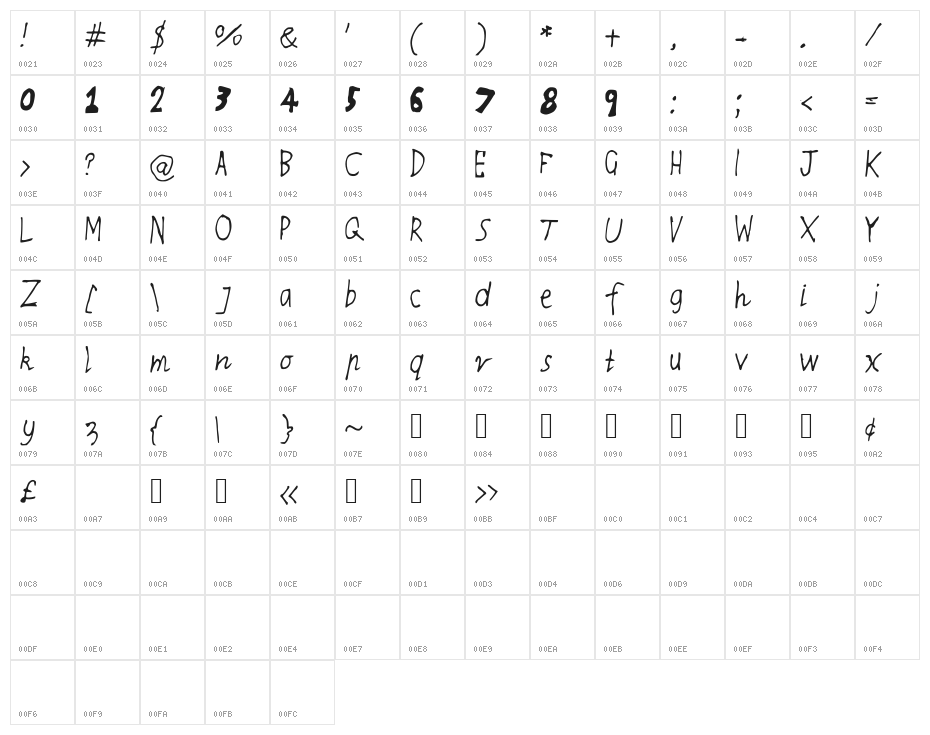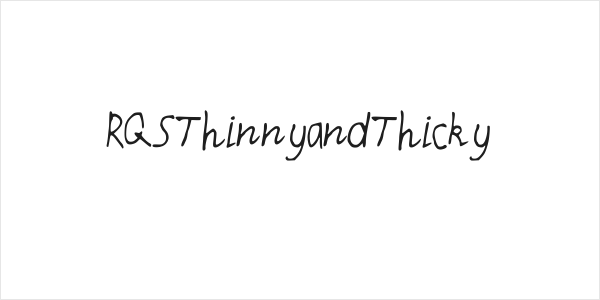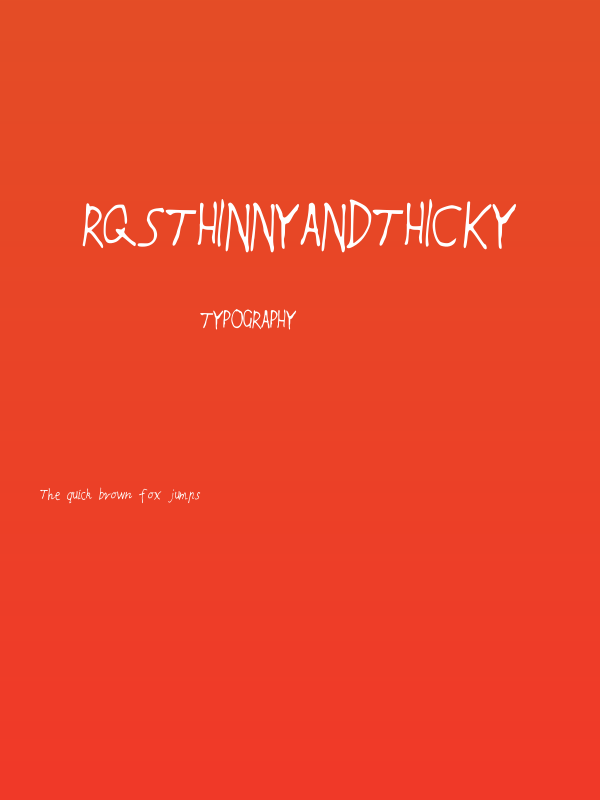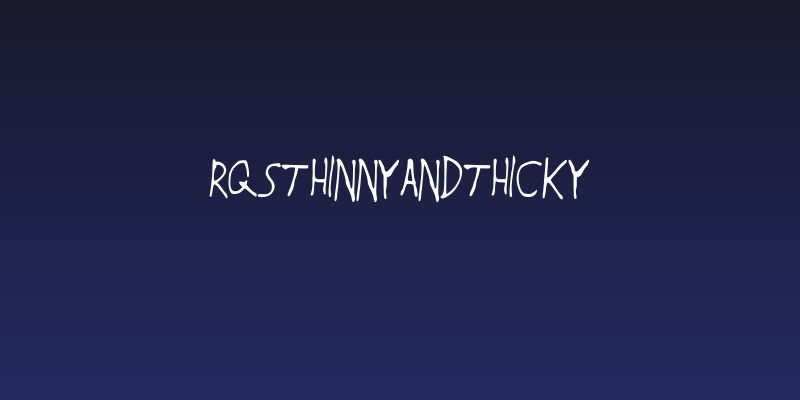
RQSThinnyandThicky Font
RQSThinnyandThicky Description
This font features a playful and dynamic handwritten style with a mix of thin and thick strokes, creating a lively and informal appearance. The uppercase letters are tall and slightly irregular, while the lowercase letters maintain a consistent flow with a casual, personal touch. The numbers are bold and distinct, adding a sense of emphasis and clarity. Special characters are creatively designed, maintaining the overall whimsical aesthetic. This font's unique character and varied stroke weight make it stand out, offering a sense of individuality and creativity.
| Use Case | Logos, Headlines, Informal text |
| Proposed Projects | Ideal for creative projects such as greeting cards, invitations, children's books, and playful branding. |